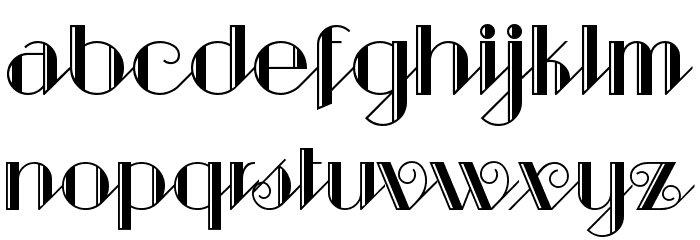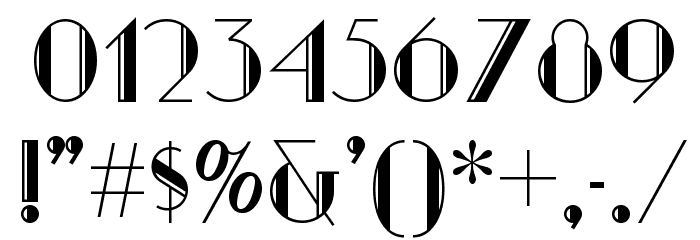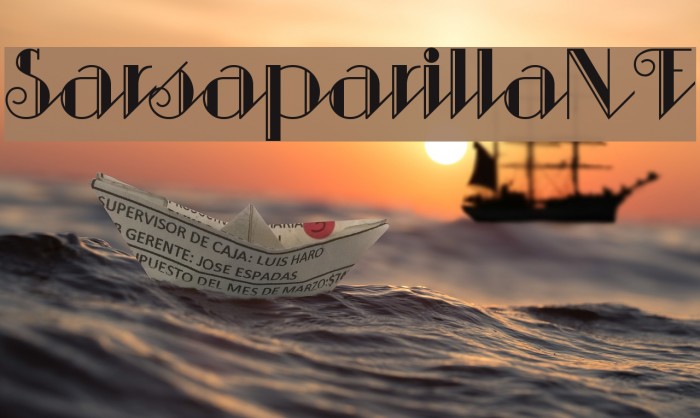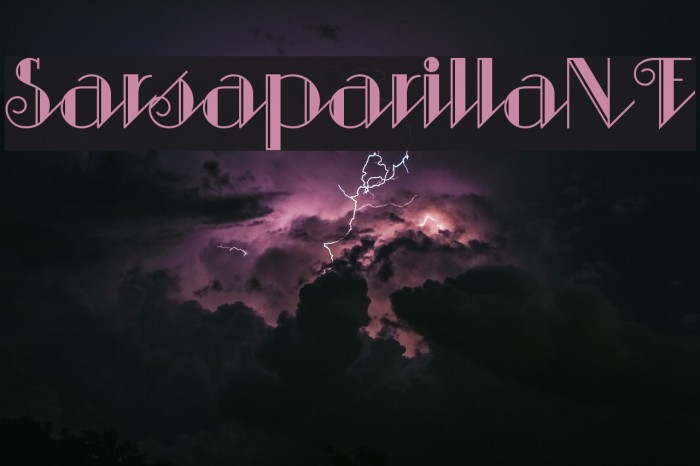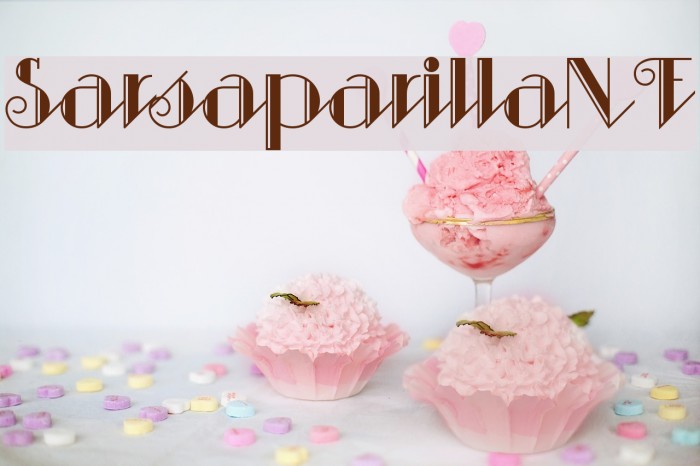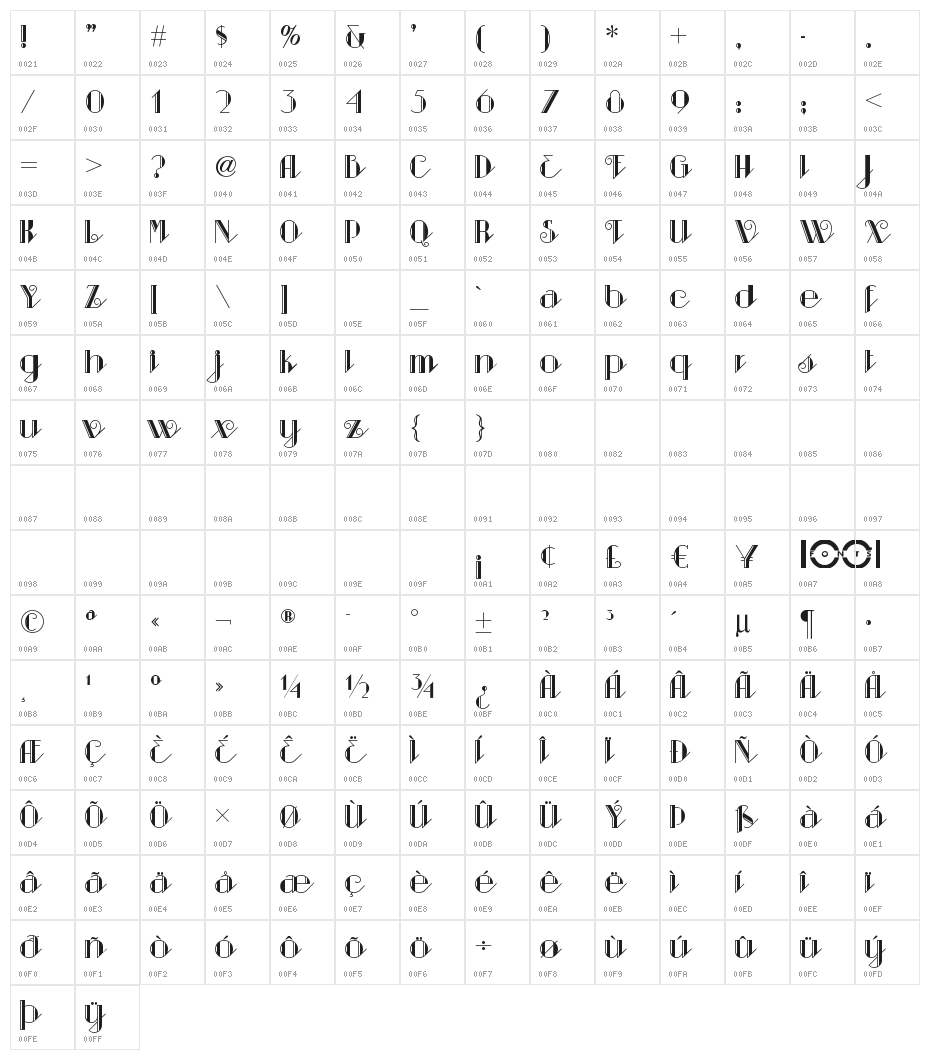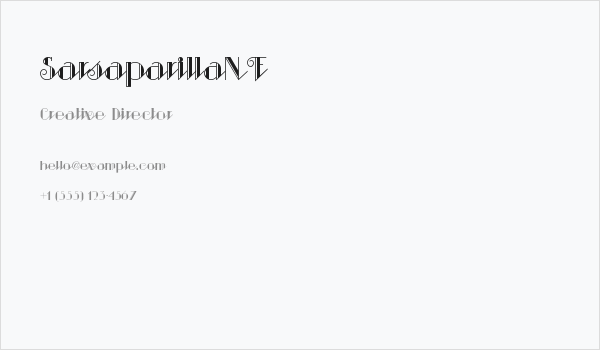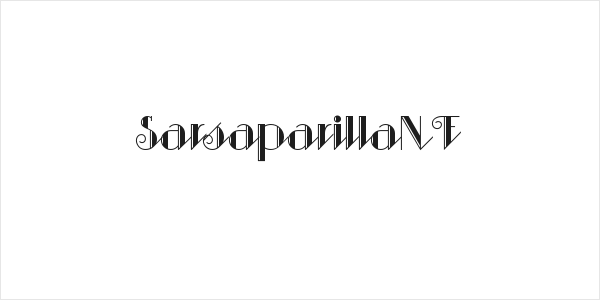
SarsaparillaNF Font
This font features a unique blend of geometric and decorative elements, creating a striking and elegant appearance. The uppercase letters are characterized by bold, angular lines with occasional flourishes, giving them a sophisticated yet playful look. The lowercase letters maintain a consistent style, with smooth curves and distinctive loops that enhance readability while adding a touch of whimsy. The numerals are bold and clear, matching the overall aesthetic of the alphabet. Special characters are thoughtfully designed, maintaining the font's cohesive style. This font's high contrast between thick and thin strokes adds to its dramatic and eye-catching appeal.
A decorative font with geometric elements and high contrast, offering a sophisticated yet playful style.